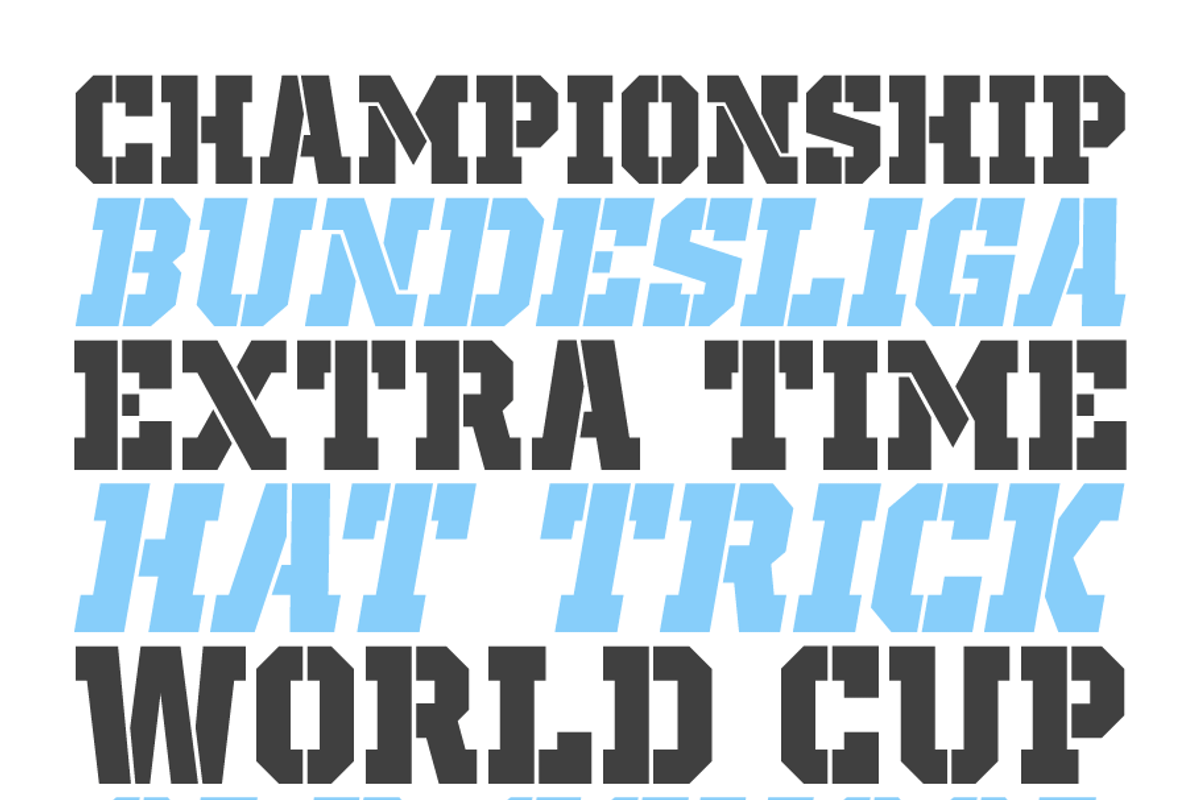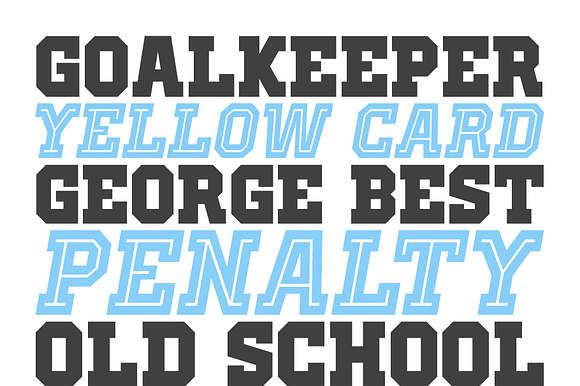
Old School United Font
Old School United is a handmade slab serif font that is perfect for headlines and small portions of text.
Old School United has more than 370 Latin and Cyrillic letters, so you will be able to use it in French, Spanish, Swedish, Icelandic, Polish, Lithuanian, Latvian, Romanian, Serbian, Russian, and so much more!
It has 12 different styles: Regular, Italic, Inline, Inline Italic, Inline Alternate, Inline Alternate Italic, Shadow, Shadow Italic, Stencil, Stencil Italic, Hairline, Hairline Italic.
Old School United Font by 43hrs5 fits naturally into Branding, posters, packaging, typography.